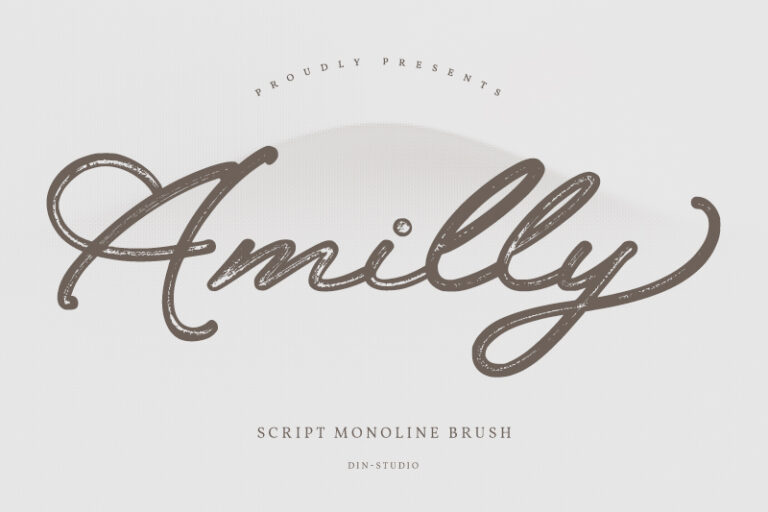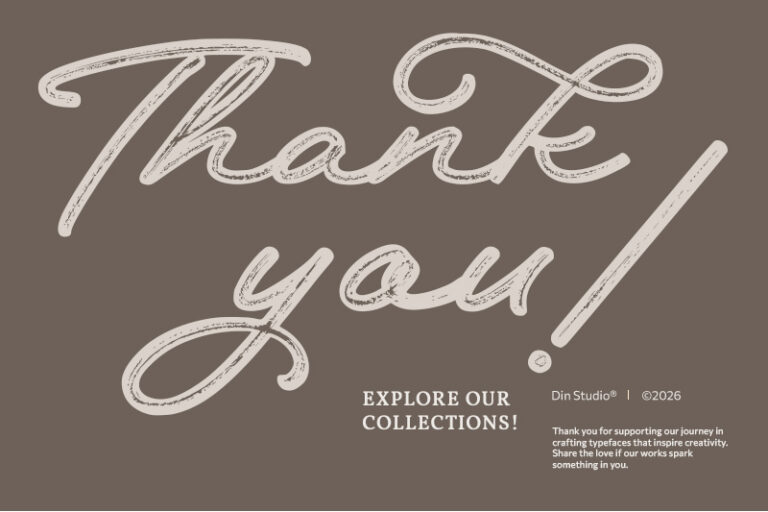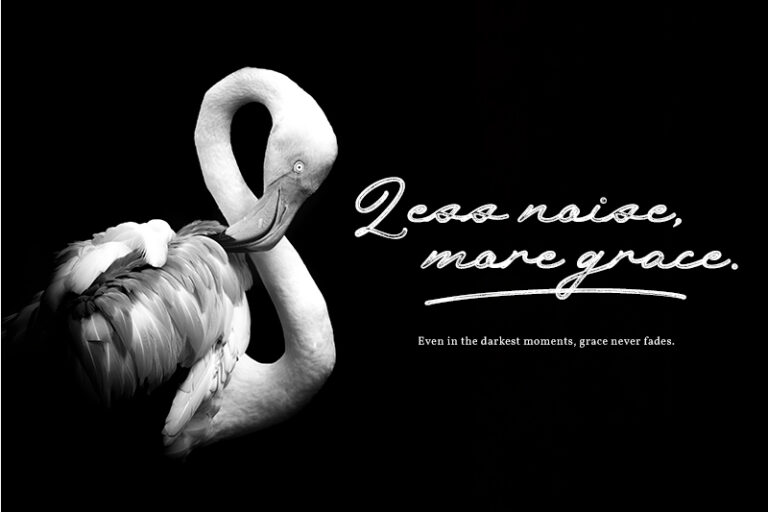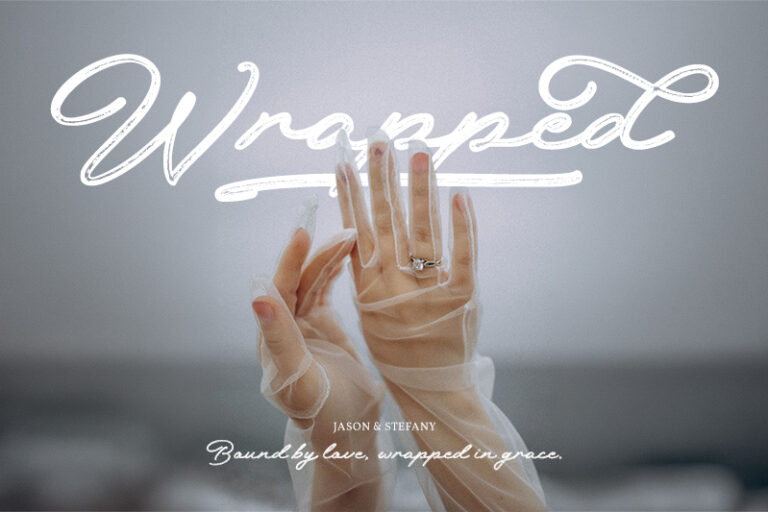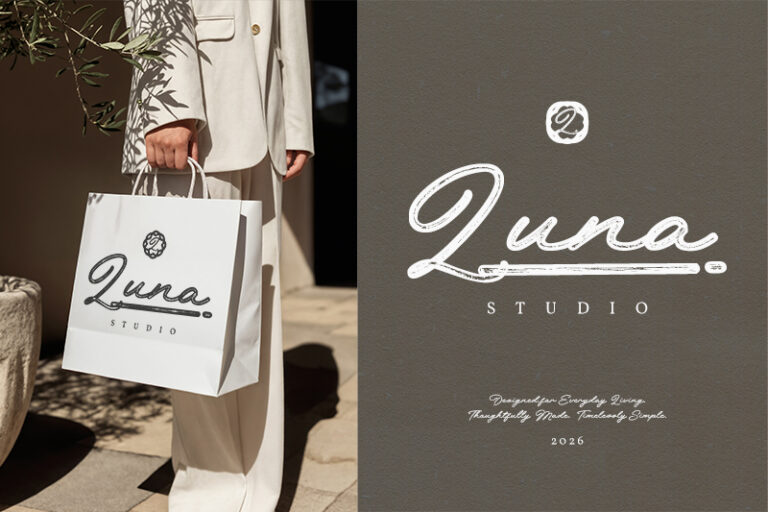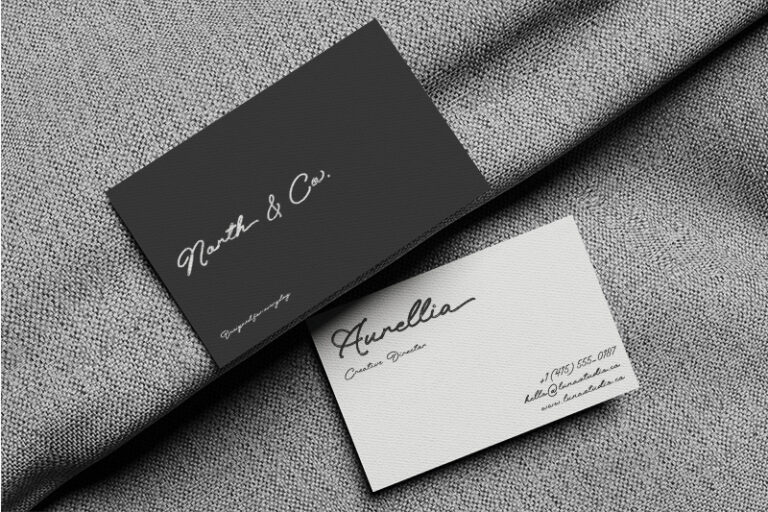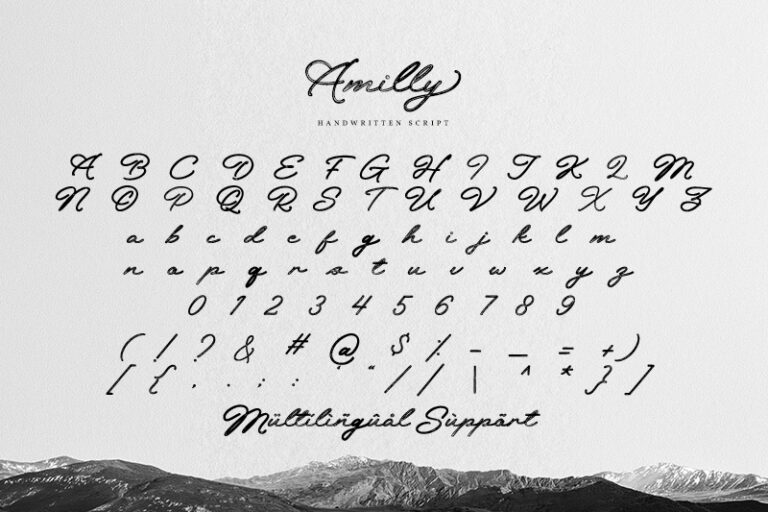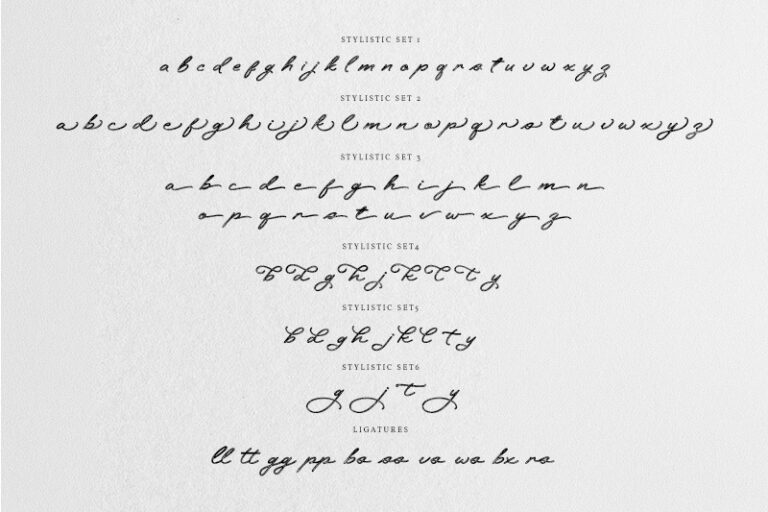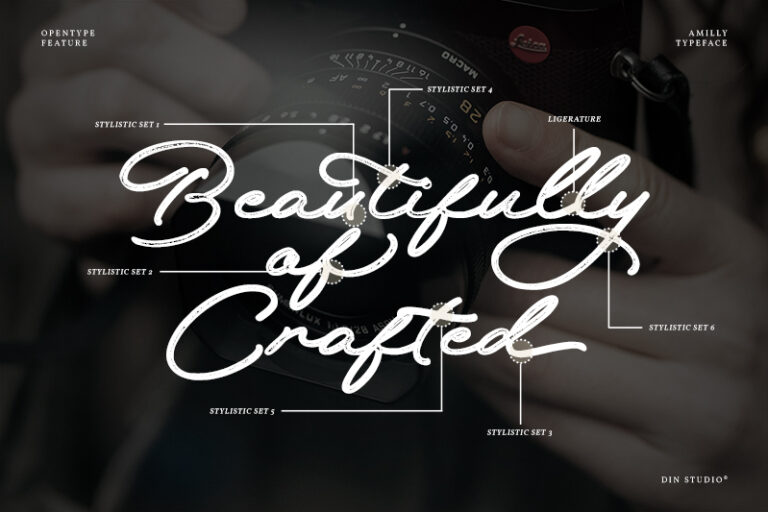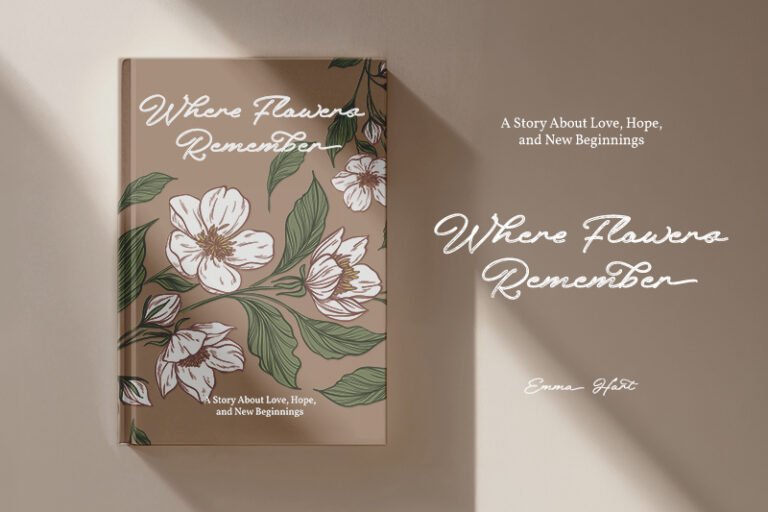
Amilly – Monoline Brush Script Font
Amilly
Amilly is a beautifully designed monoline brush script font. Created to emulate the fluid movement of real brush lettering, Amilly combines the simplicity of a monoline script with the organic charm of handwritten calligraphy. Its connected letters create smooth and harmonious word shapes, making every sentence appear naturally written by hand. The low-contrast stroke weight provides a soft and consistent appearance, resulting in typography that is clean, readable, and timeless. In addition, enjoy the features here.
- Ligatures
- Stylistic Sets
Amilly fits in invitations, logos, quotes, name cards, branding, posters, and many more designs. Find out more ways to use this font by taking a look at the font preview.